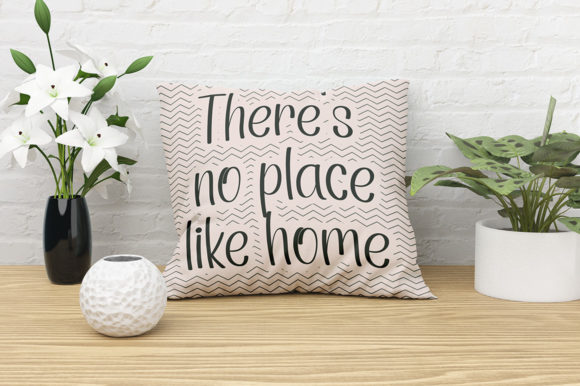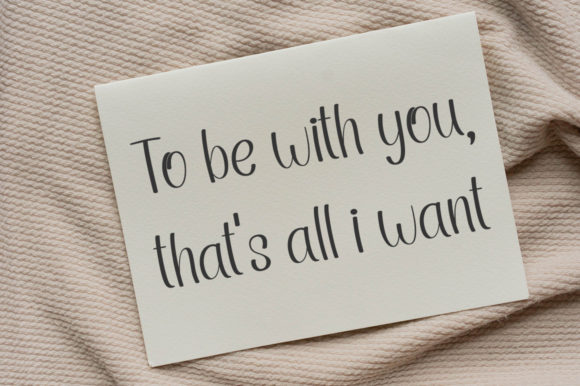
Candella Font
db-ku.com - Script & Handwritten -- Candella is a cute and simple-lettered handwritten font. It is perfect for all chalkboard quotes and teaching material! Its authentic look will add a personal and realistic feel to your designs.